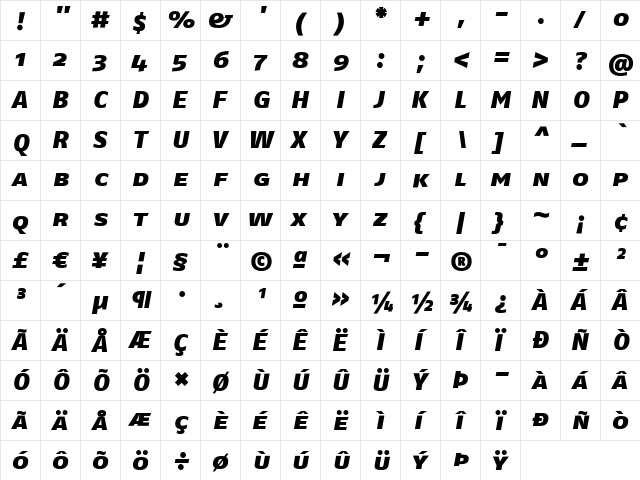
FagoEx ItalicHeavy
Design Context for FagoEx Typeface
FagoEx is a composed and adaptable typeface that performs quietly and consistently across a wide range of design contexts. Its italic angle brings a sense of urgency and motion to the letterforms.
Pro Tip: Use FagoEx for emphasis, pull quotes, and subheadings where its slanted energy can add rhythm to the layout.